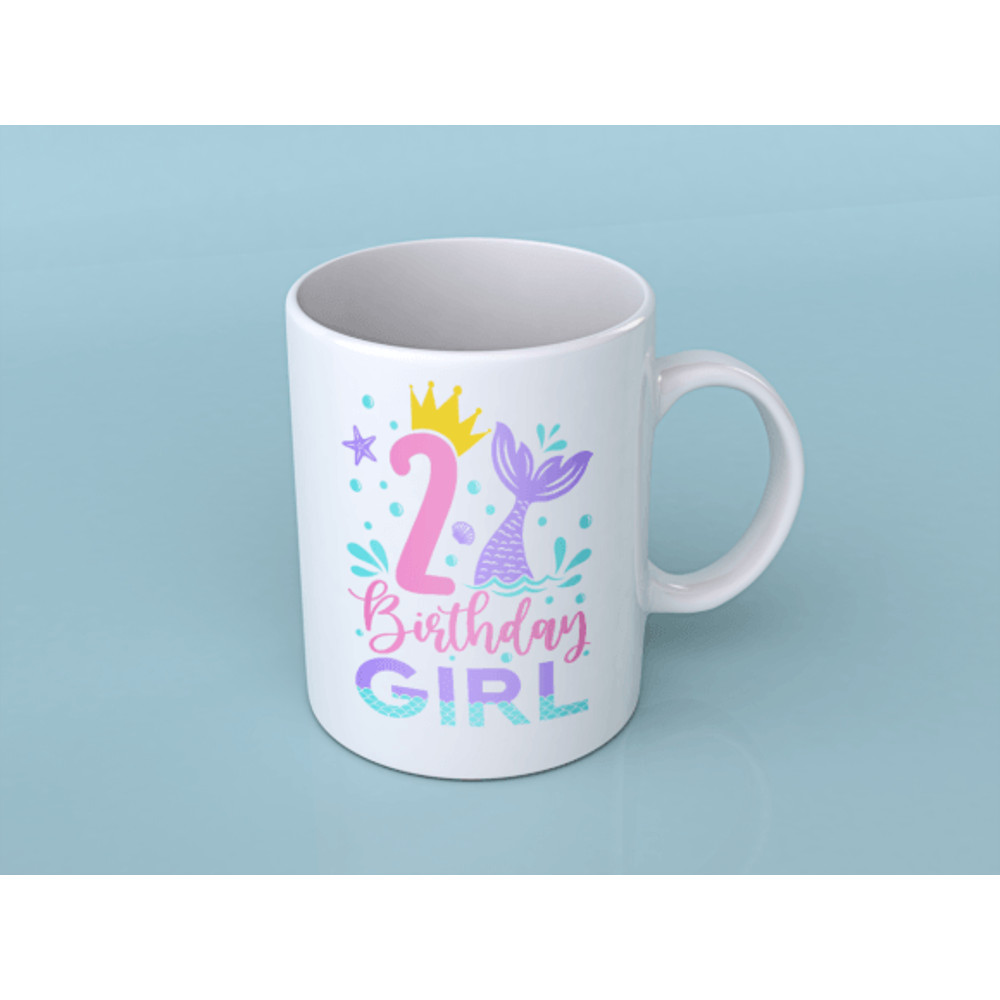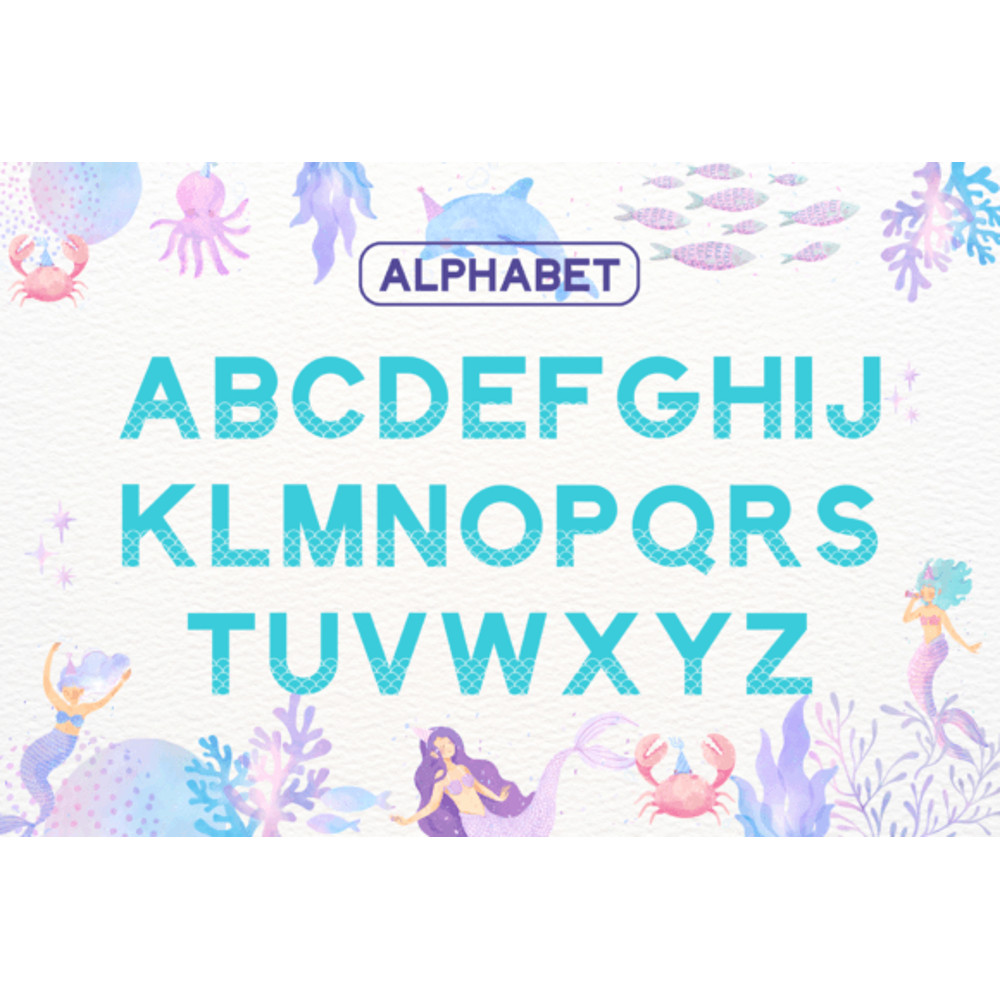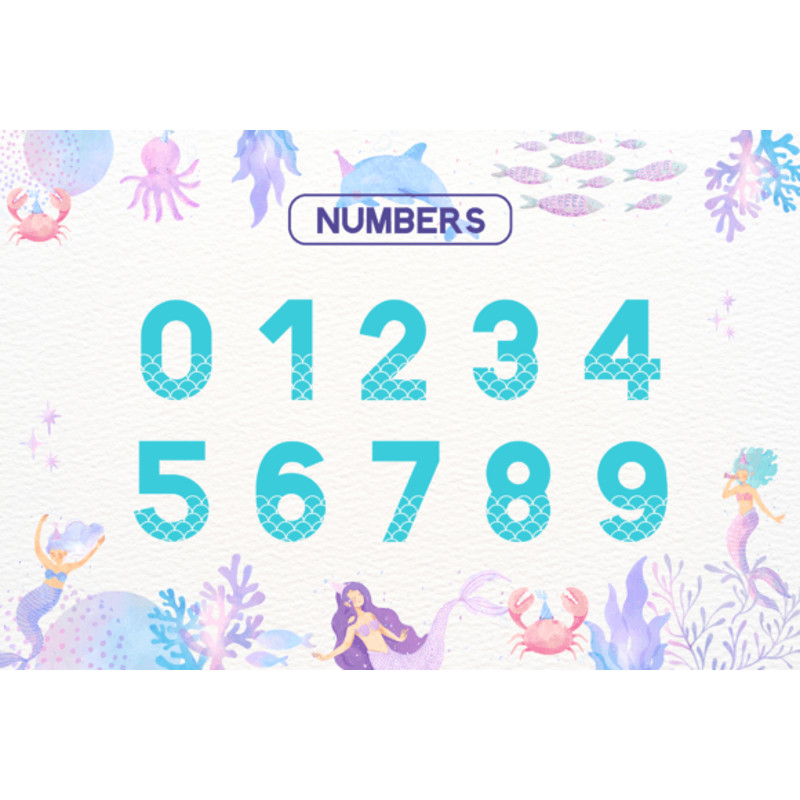
Mermaid Font
The “Mermaid” display font is a stunning and captivating typeface that captures the enchanting essence of the mythical underwater creatures it is named after. This font exudes a sense of mystery, elegance, and fluidity, reminiscent of the graceful movements of mermaids gliding through the depths of the ocean.